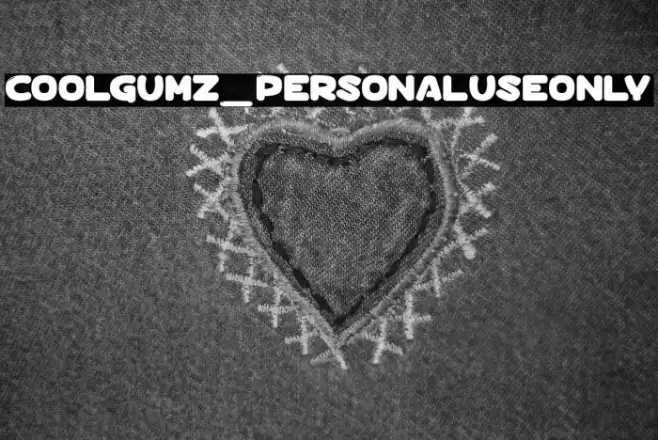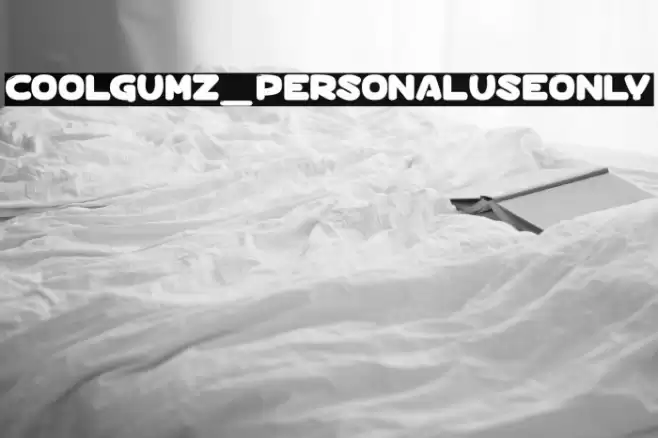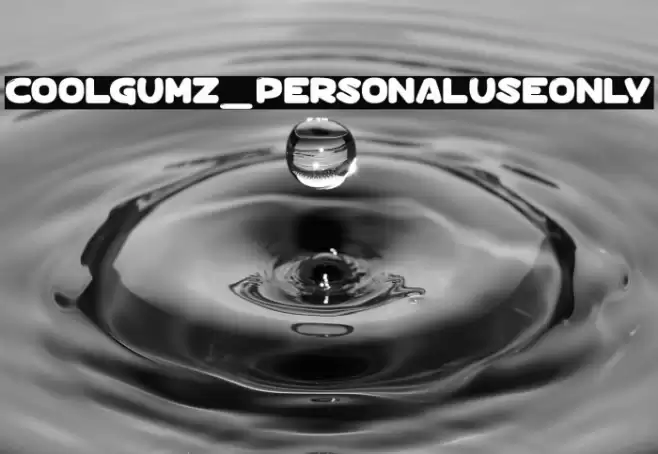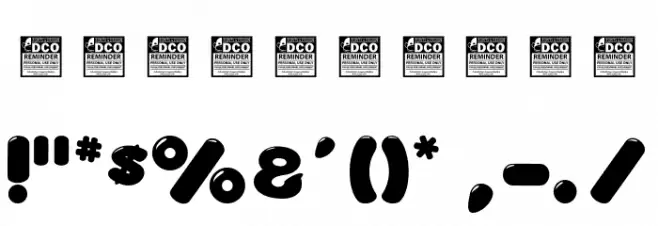
Coolgumz_PersonalUseOnly Font
Coolgumz_PersonalUseOnly Description
This font features a bold and playful design with rounded edges and a bubbly appearance. The characters are thick and have a consistent weight throughout, giving them a strong presence. The style is reminiscent of retro or vintage aesthetics, making it suitable for designs that aim to capture a sense of fun and nostalgia. The uppercase and lowercase letters maintain a uniform look, while the numbers and special characters complement the overall style with their rounded forms. This font is ideal for projects that require a lively and engaging typeface.
A bold, playful font with rounded edges and a retro vibe from Uncategorized fonts.
- Proposed Projects: Great for children's books, playful branding, posters, and retro-themed designs.
- Overall Style: Retro, Playful